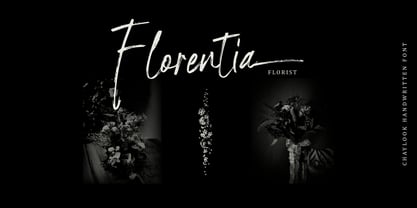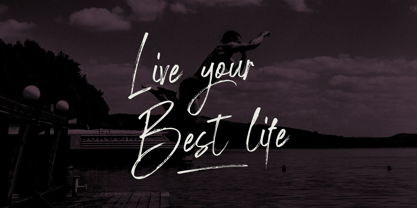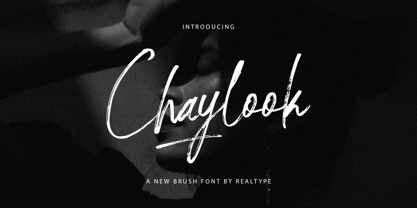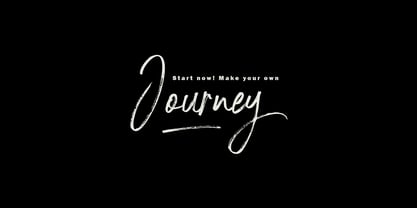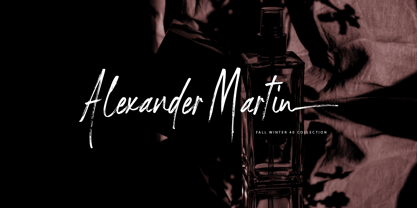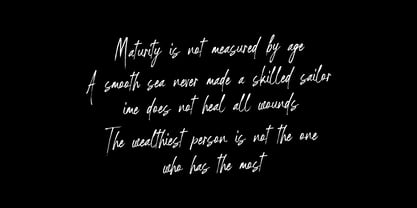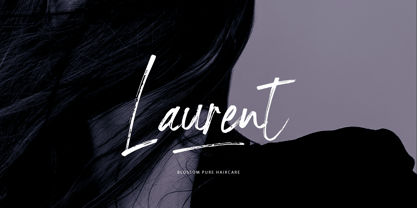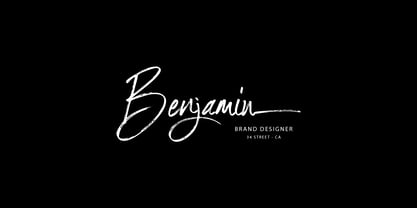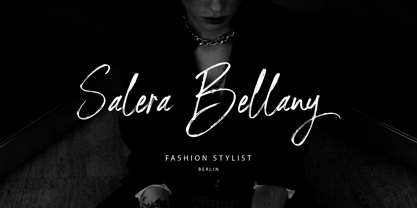
Chaylook
by Realtype
The Chaylook Font Family was designed by Alam Syahril and published by Realtype. Chaylook contains 1 styles. More about this family
Chaylook consist of a sophisticated, elegant, classy and modern handwriting style.
A beautifully handcrafted font combined with brush style that’ll make your guests sing and elevate your projects! Every stroke, and curve was created to entice happiness and elegance.
Chaylook fits best for any design projects, such as posters, banners, logos, book covers, album covers, quotes, invitations, greeting cards, name cards, headings, printed products, merchandise, social media, etc. This font has include multilingual support.